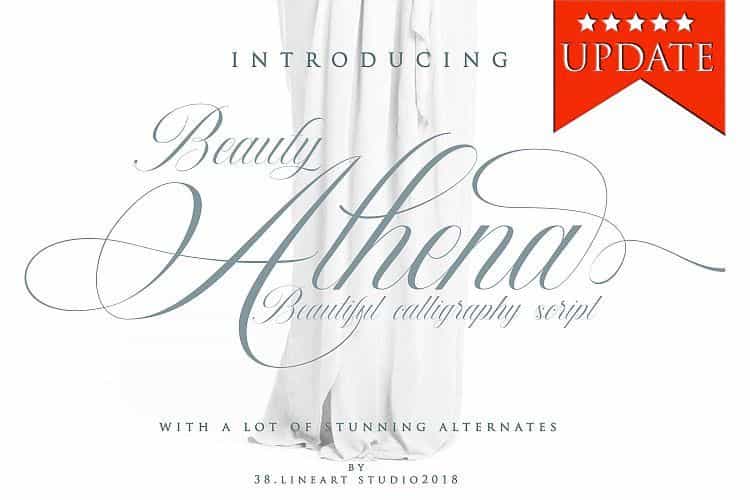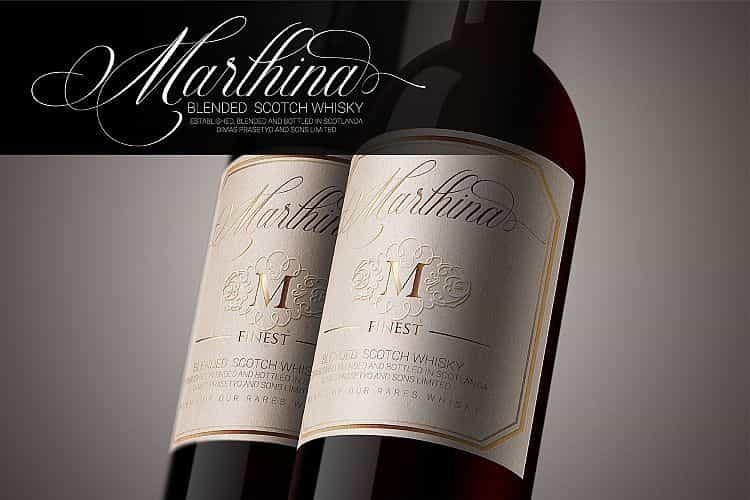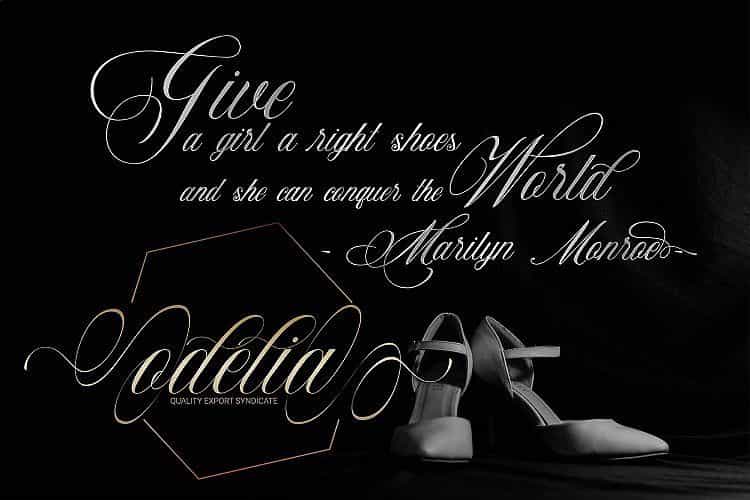
Beauty Athena Font. It’s inspired by Athena, goddess of wisdom, courage, inspiration, mathematics, strength, strategy, the arts, crafts, and skill. Athena font is a font that comes with very beautiful changing characters, a kind of classic decorative copper script with a modern touch, designed with high detail to bring stylish elegance, clean, feminine, sensual, glamorous, simple and very easy to read because there are many letter connections.